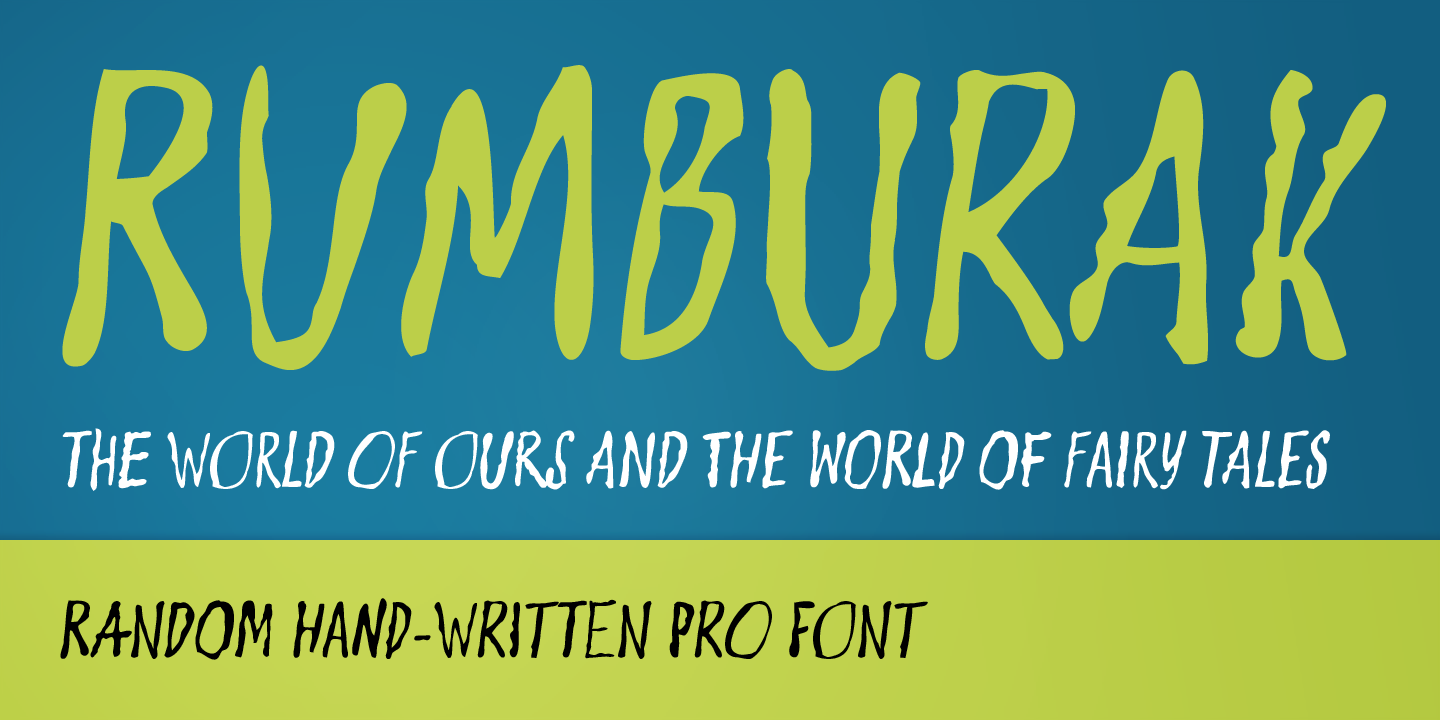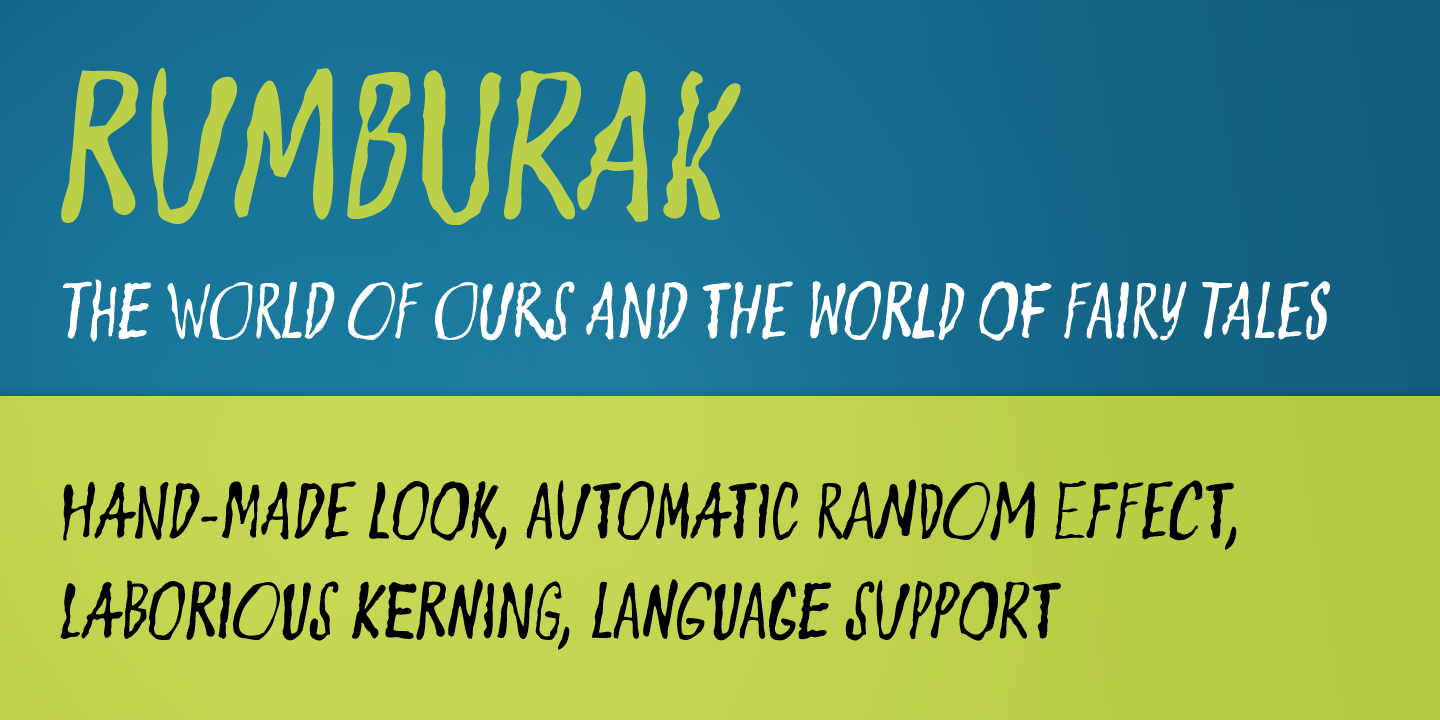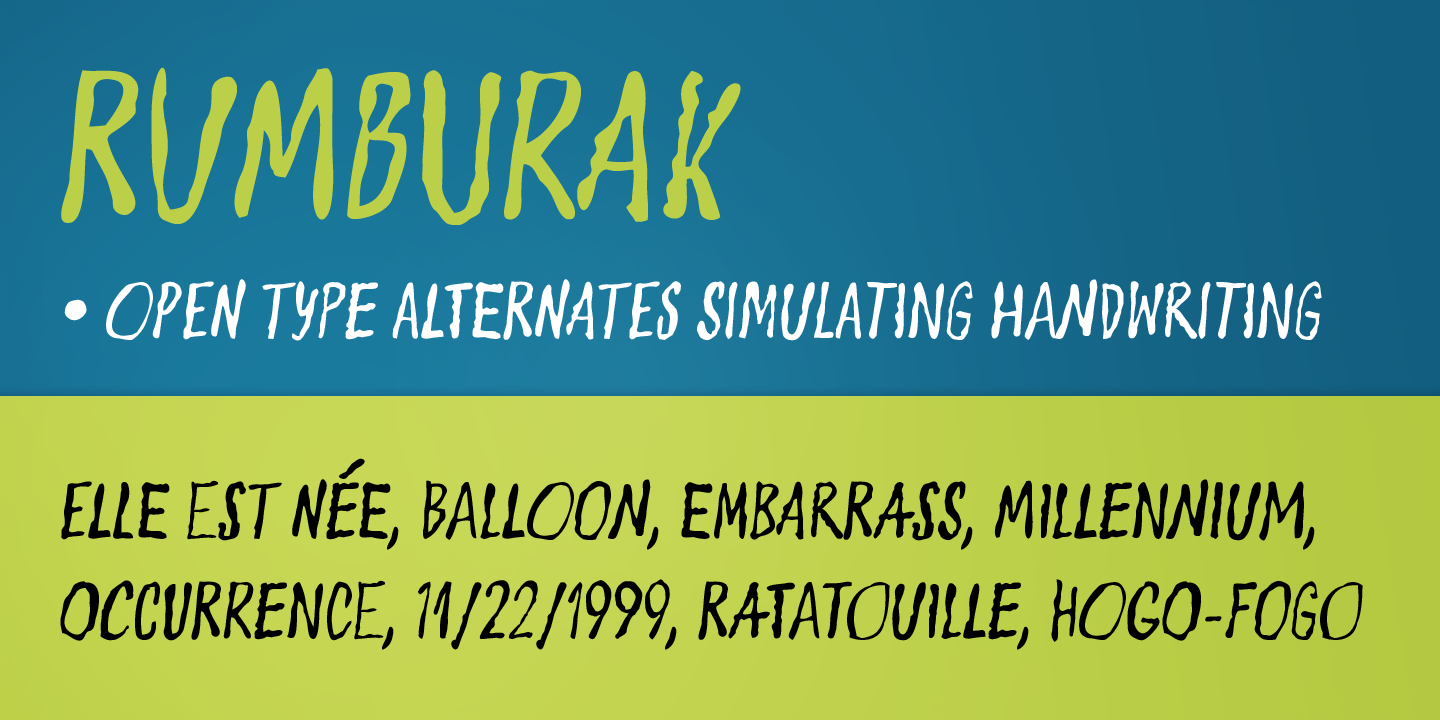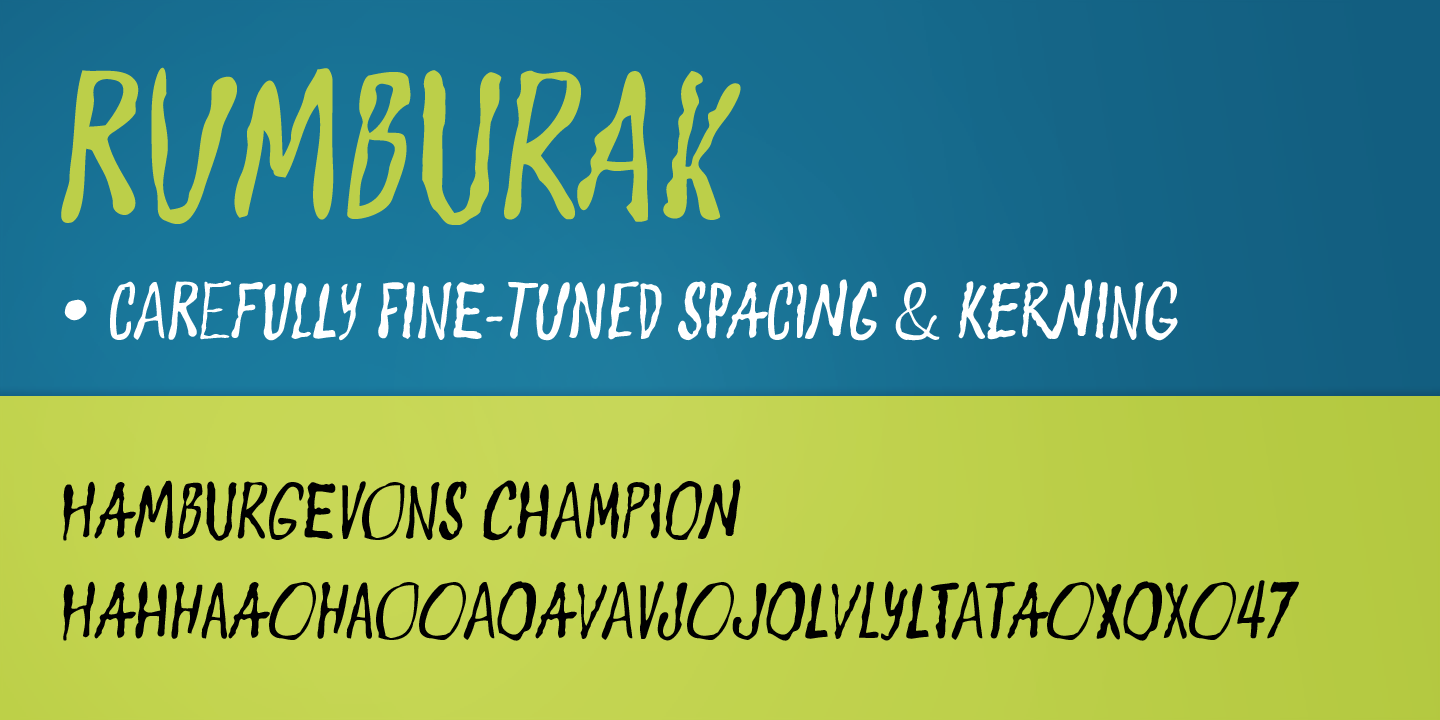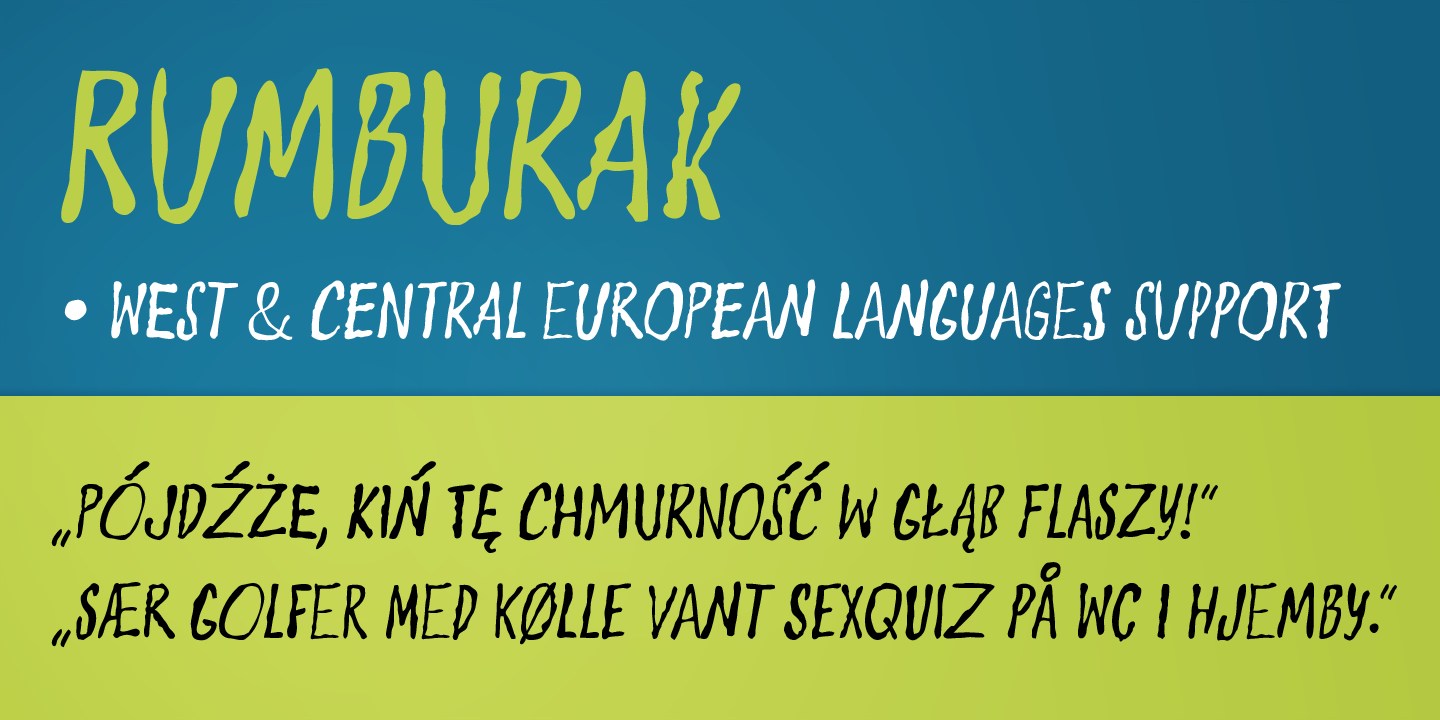
Rumburak (1 font)
From Juraj Chrastina Type
With its irregularity and numerous alternates, Rumburak simulates live handwriting. When the font is used in OpenType-savvy applications, the 4 variants of glyphs are automatically alternated to achieve a random-like effect.
The spacing and kerning were carefully fine-tuned by Igino Marini and the kerning table contains kerning pairs for use with the random feature turned on or off. The font includes multi-language support.
About Juraj Chrastina Type
His work began in web design, and now covers print design, corporate and product identity design, other media, some photography, and type design. “Designing type is a very pure form of design for me, and the more involved I get in typography the more inspired I get. I´d love to work more with type design in the future, which means changing the ratio of my creative activities.”